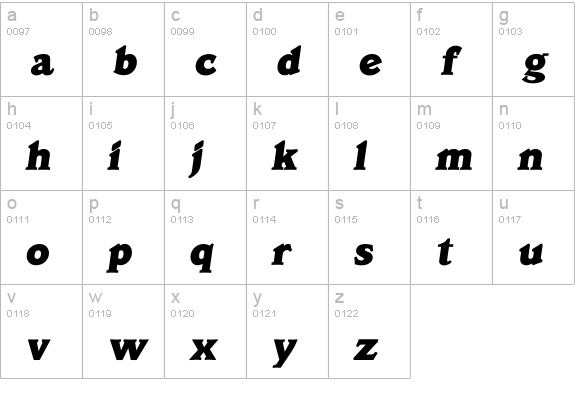
Iveracruz ExtraBold is an extra-heavy, attention-grabbing variant in the Iveracruz typeface family \xE2\x80\x94 well suited to high-impact headlines, posters, and bold branding.
Introducing Iveracruz ExtraBold, a striking and powerful font that commands attention with its bold and assertive presence. With its thick and sturdy letterforms, this font exudes a sense of confidence and strength, making it the perfect choice for headlines, titles, and any design project that requires a bold statement. Iveracruz ExtraBold is characterized by its clean and sharp lines, giving it a modern and contemporary feel. Its generous weight and wide proportions ensure maximum impact, while maintaining excellent legibility even at smaller sizes. Whether used in print or digital media, this font stands out and demands to be noticed. What sets Iveracruz ExtraBold apart is not just its exceptional design, but also its accessibility. This font is freely available to download at FontsMarket.com, allowing designers, creatives, and enthusiasts to access this impressive typeface without any cost. With its open availability, Iveracruz ExtraBold empowers designers to create captivating and eye-catching designs without any restrictions. With its versatility, Iveracruz ExtraBold can be used across a wide range of projects, from branding and advertising to packaging and editorial design. Its bold and commanding presence guarantees that your message will be delivered with impact and confidence. Stand out from the crowd and make a statement with Iveracruz ExtraBold. Download Iveracruz ExtraBold today at FontsMarket.com and experience the freedom of creating stunning designs with this exceptional font. Unleash your creativity and elevate your projects with the bold and powerful Iveracruz ExtraBold.